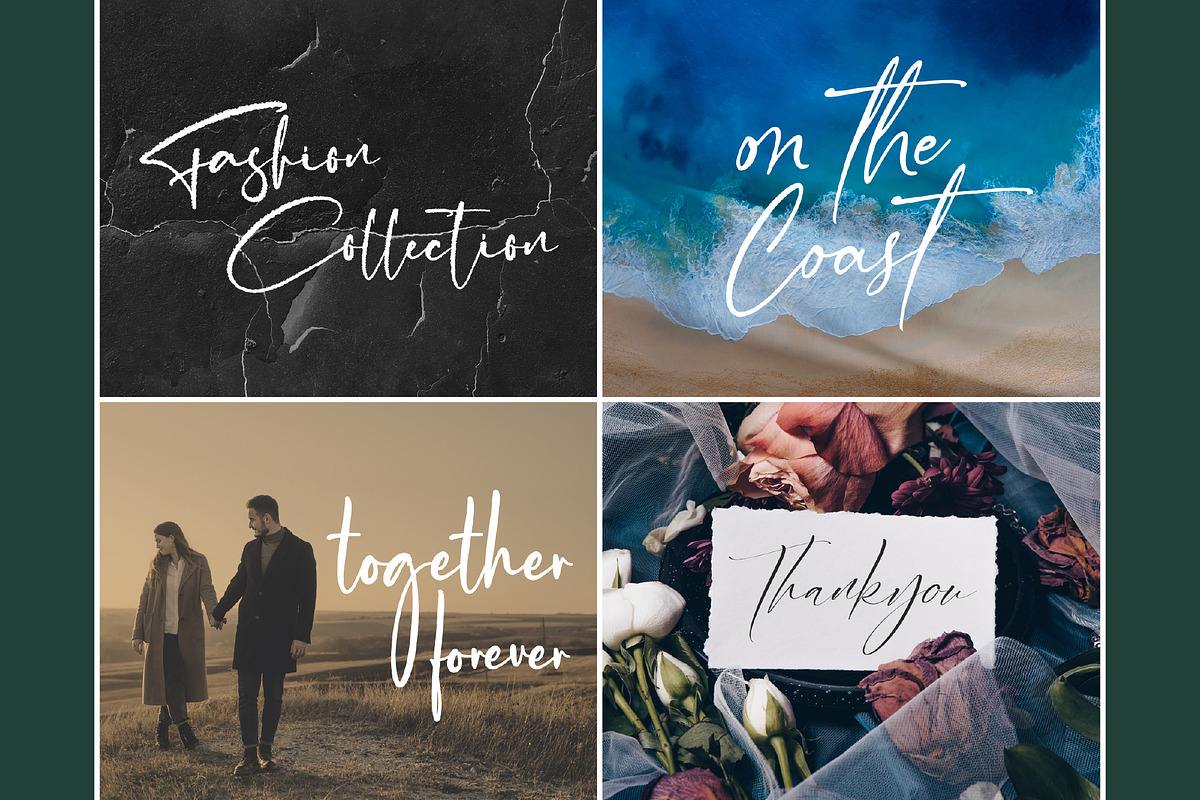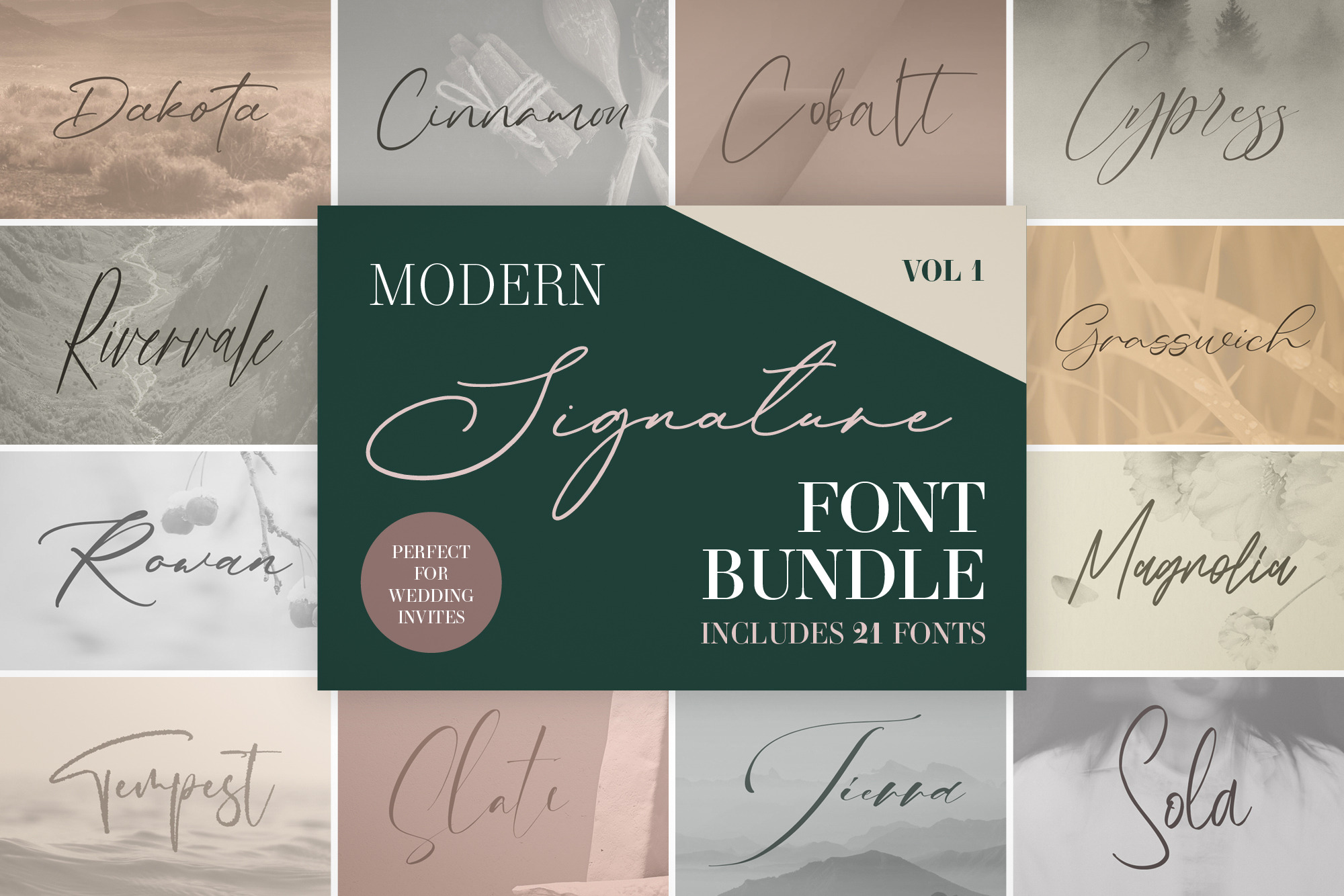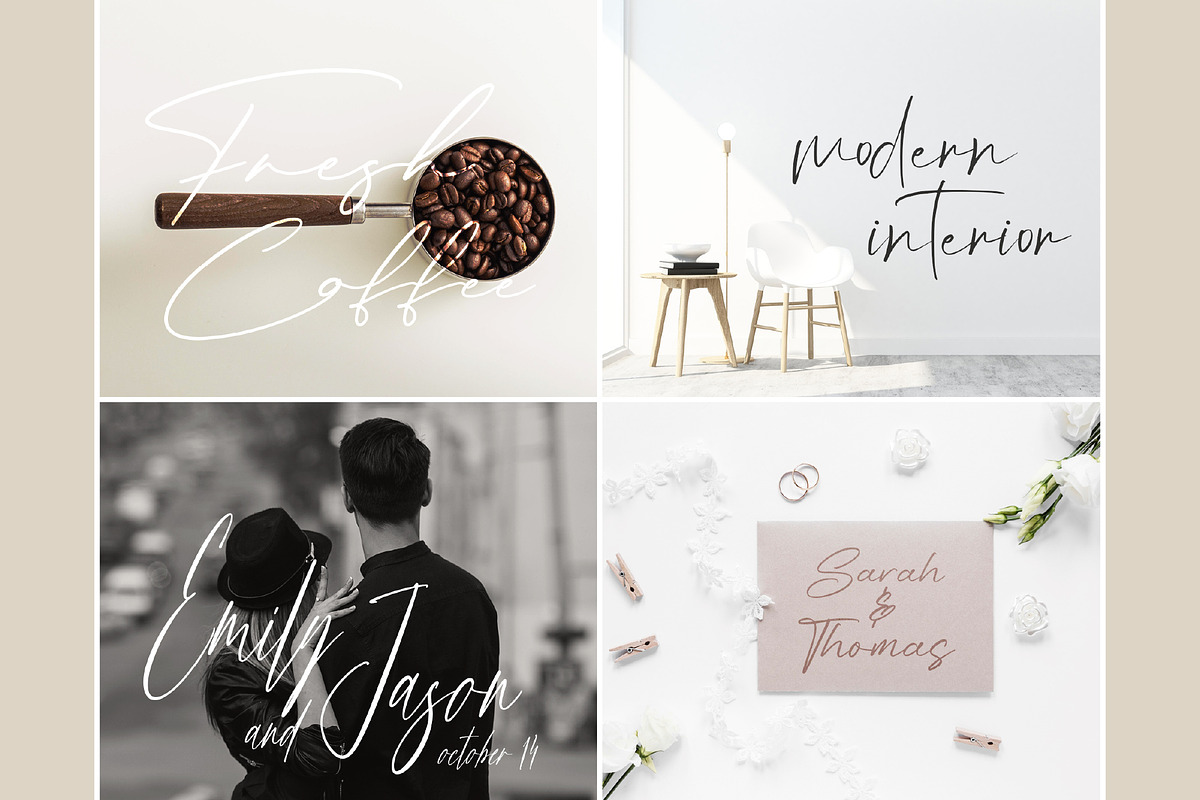
Modern Signature Font Bundle Vol 1
This fantastic value bundle consists of 21 fonts, each carefully crafted to give your projects a unique look and feel. Perfectly suited for stationery, logo design, typography quotes and editorial graphic design.